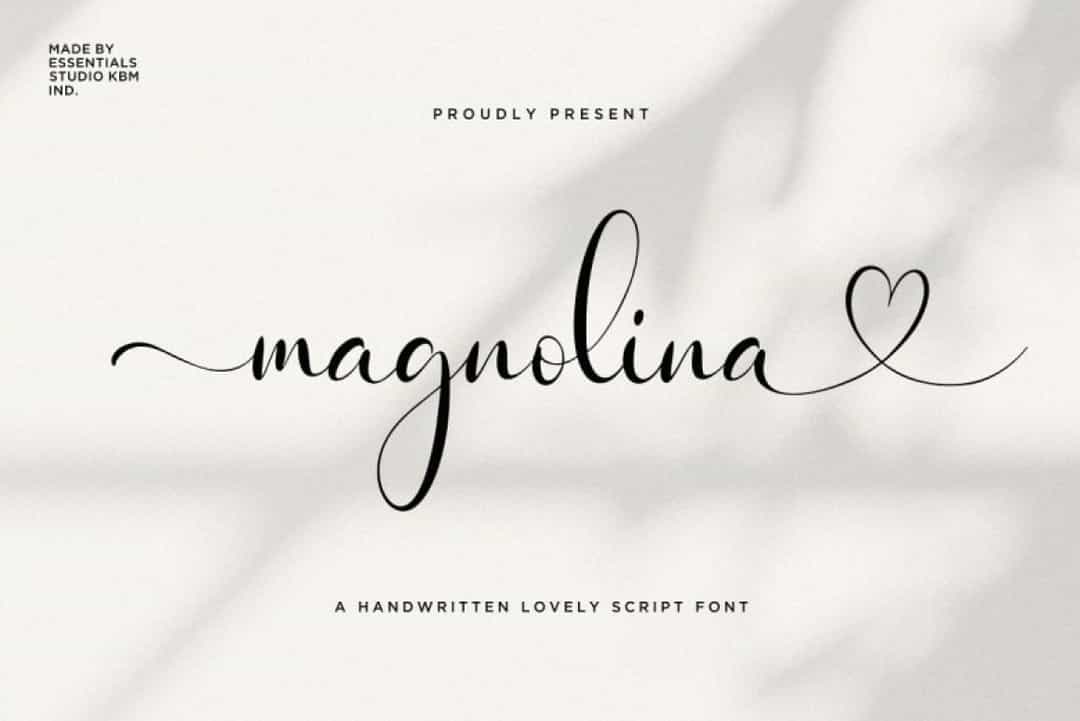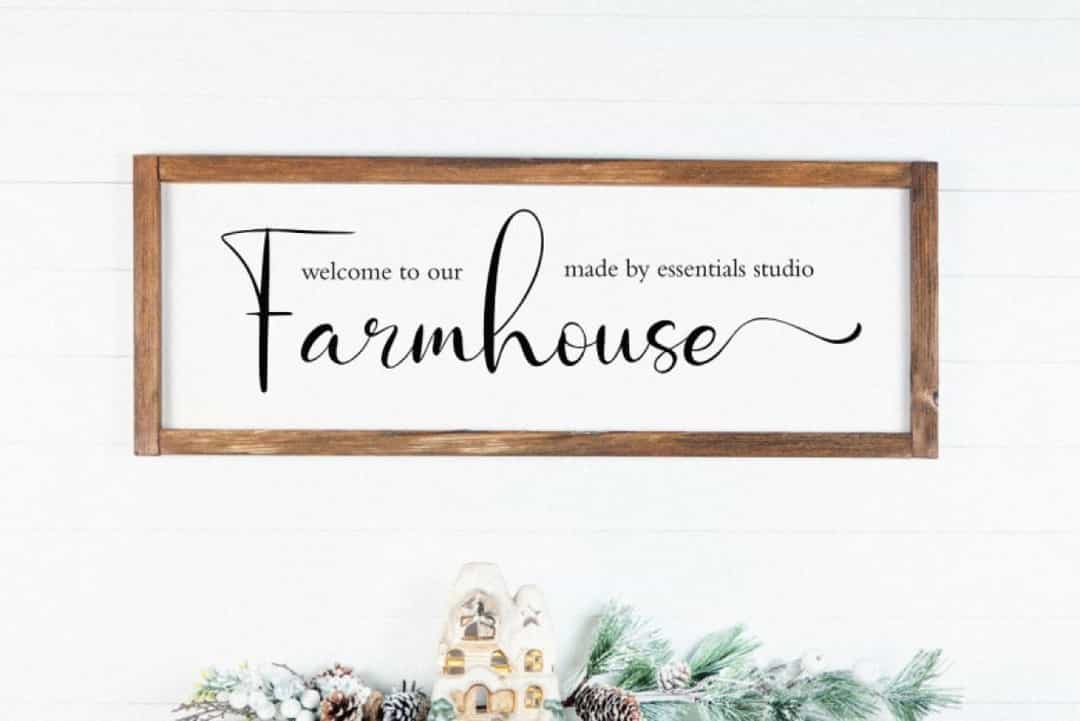
Magnolina is an elegant handwritten script font. Crafted by expert hands and featuring precise letterforms, Magnolina makes an invaluable addition to your font library; perfect for packaging products, branding projects, magazines, social media posts, wedding cards etc or conveying words over any background!